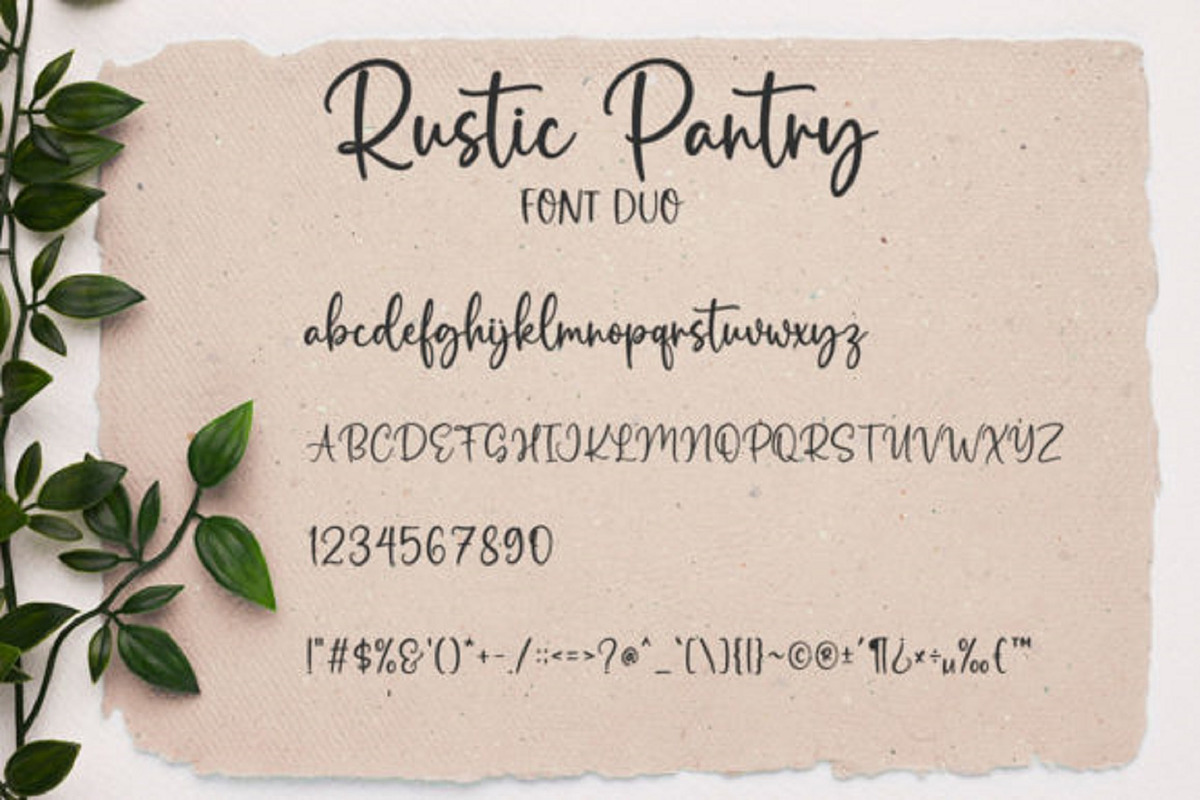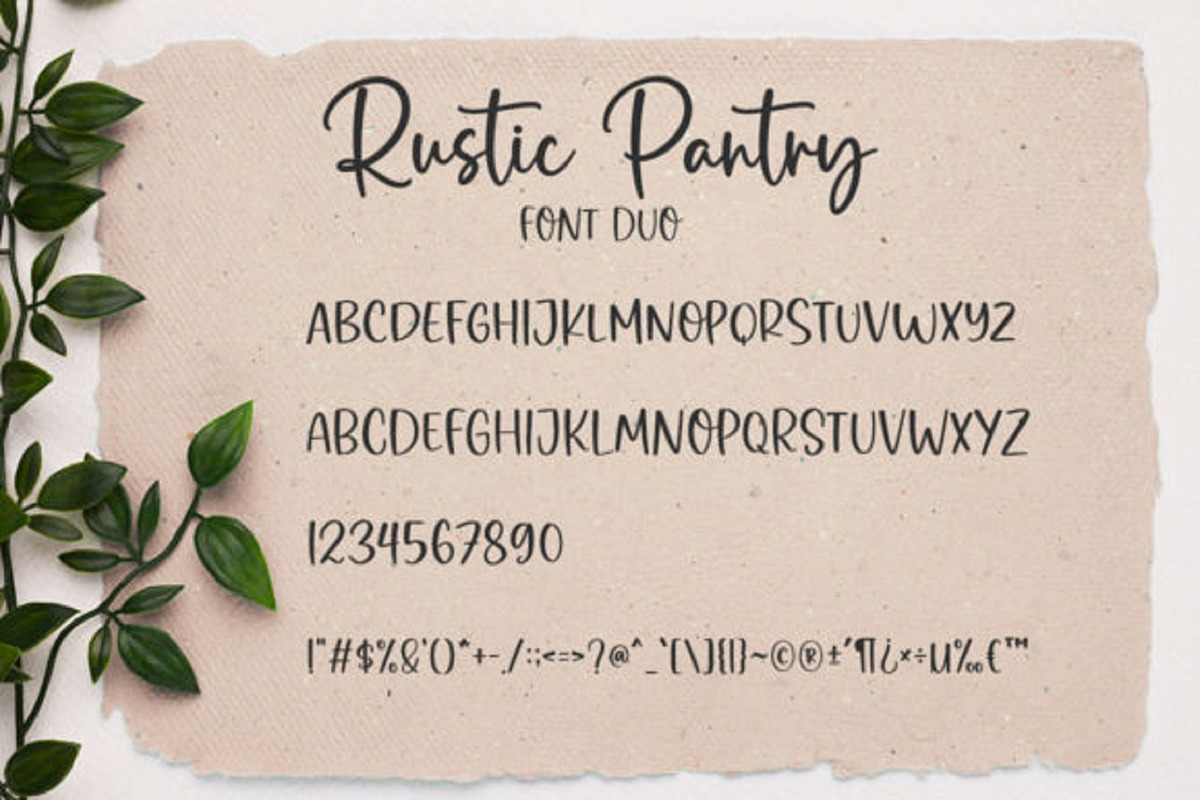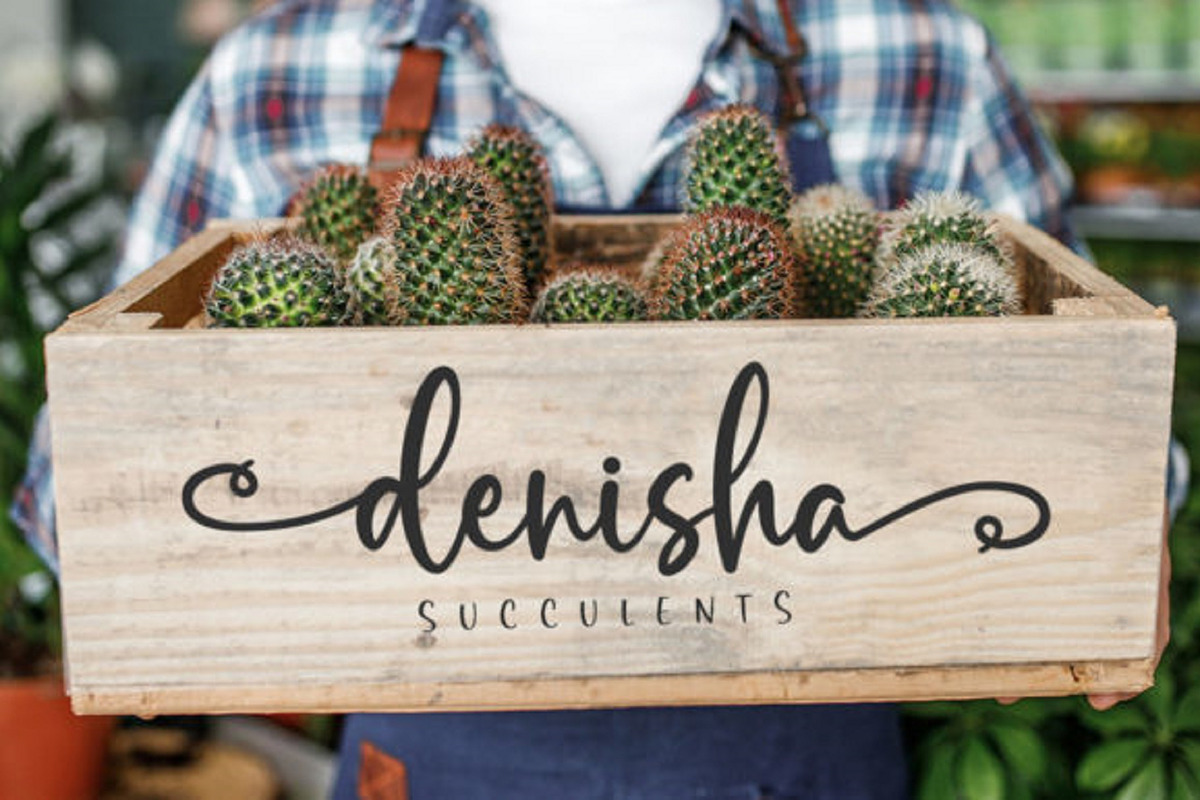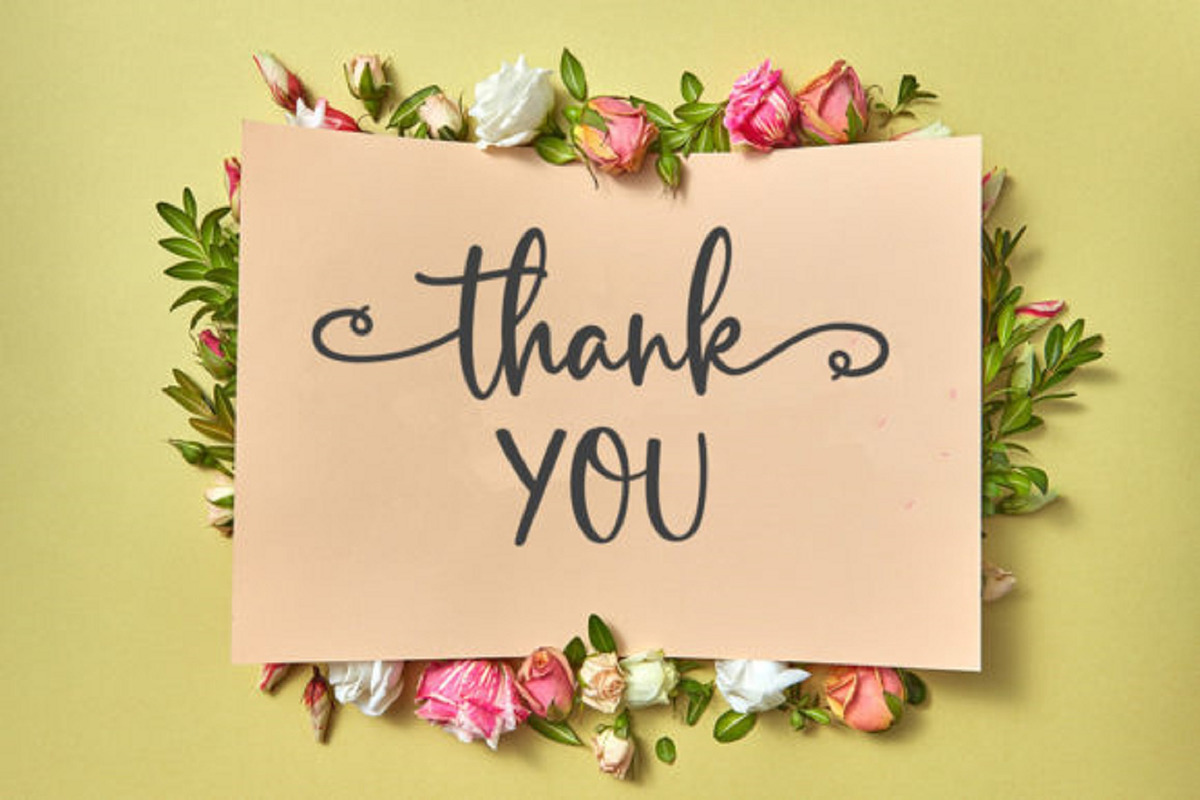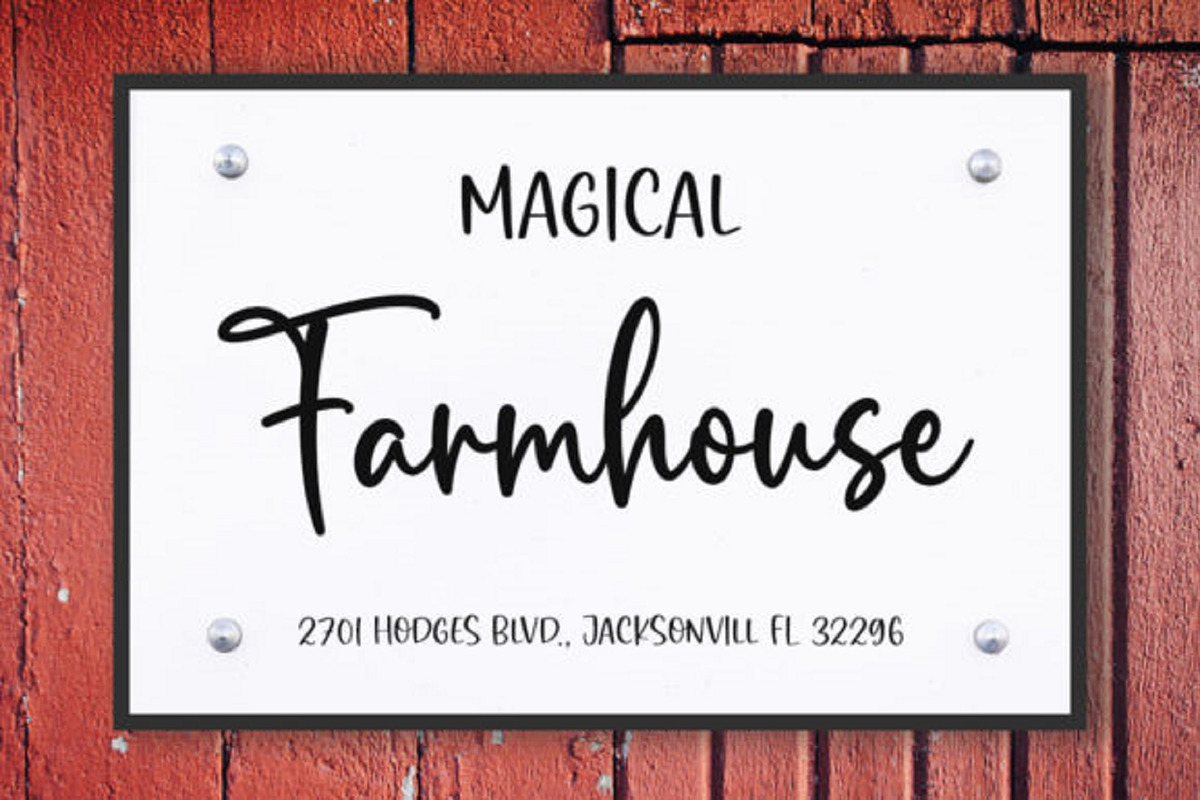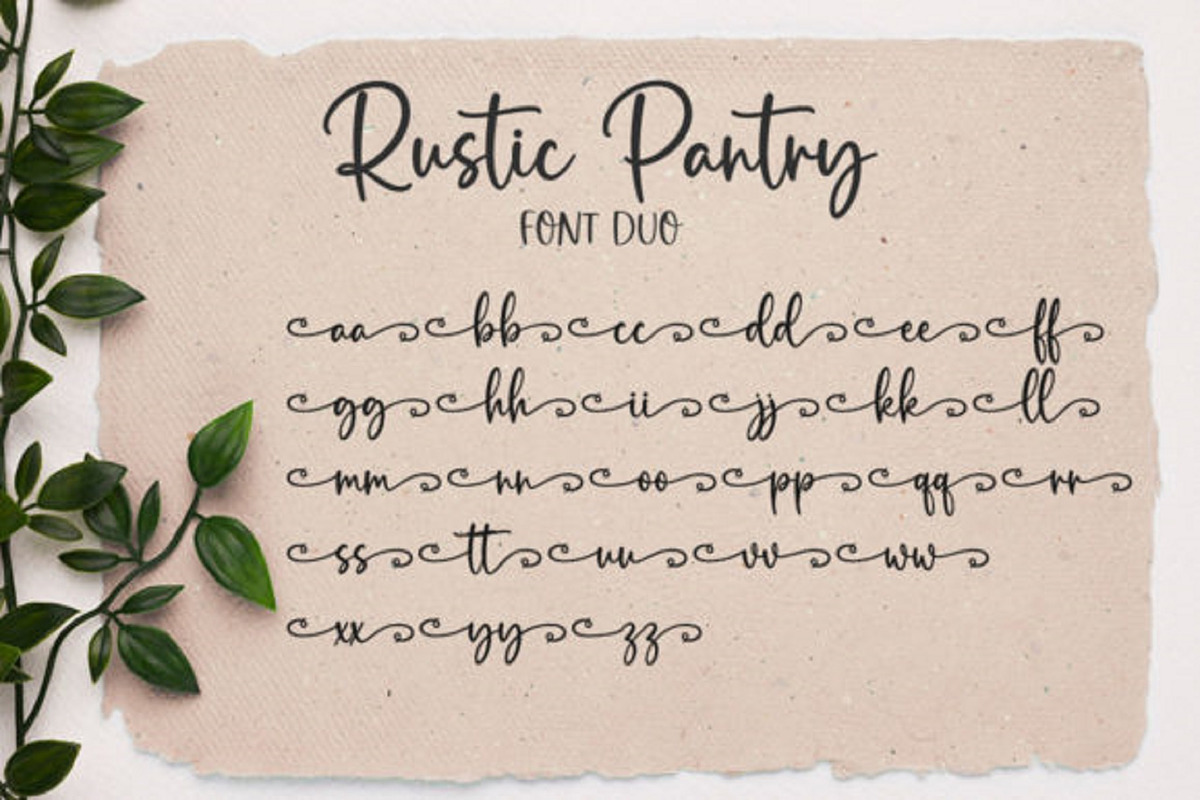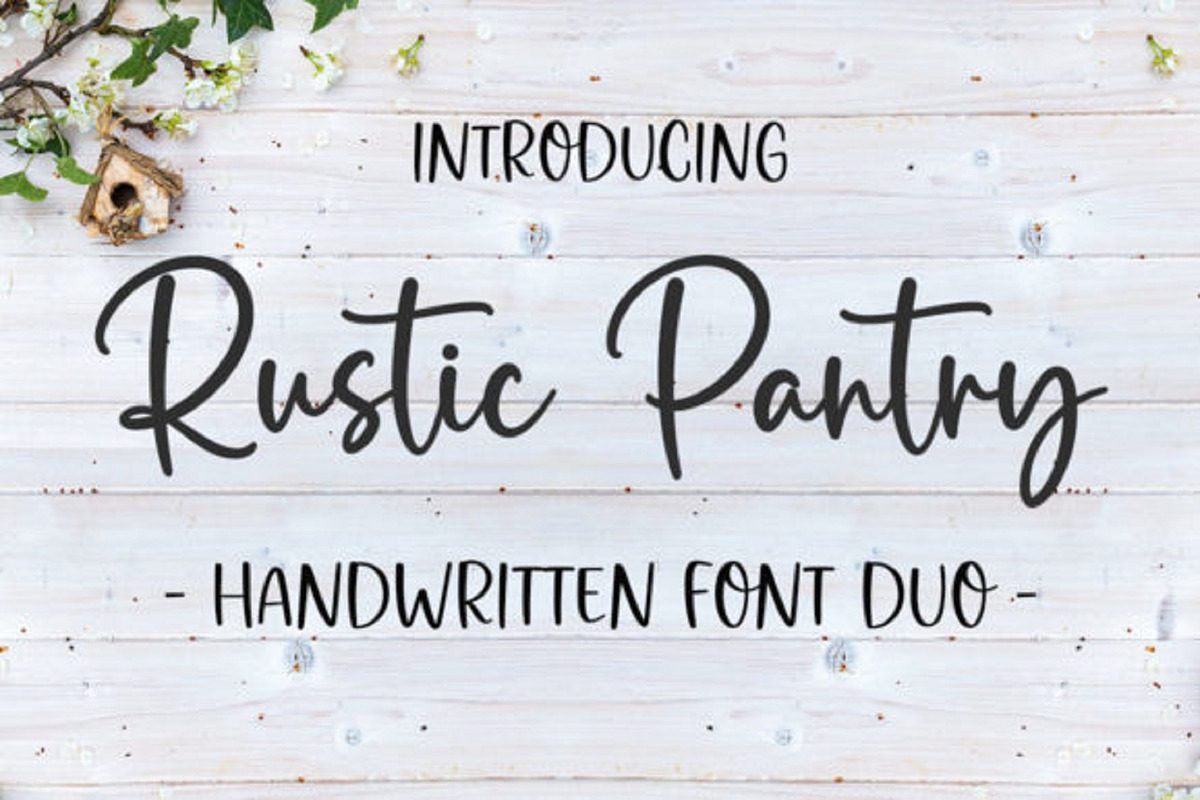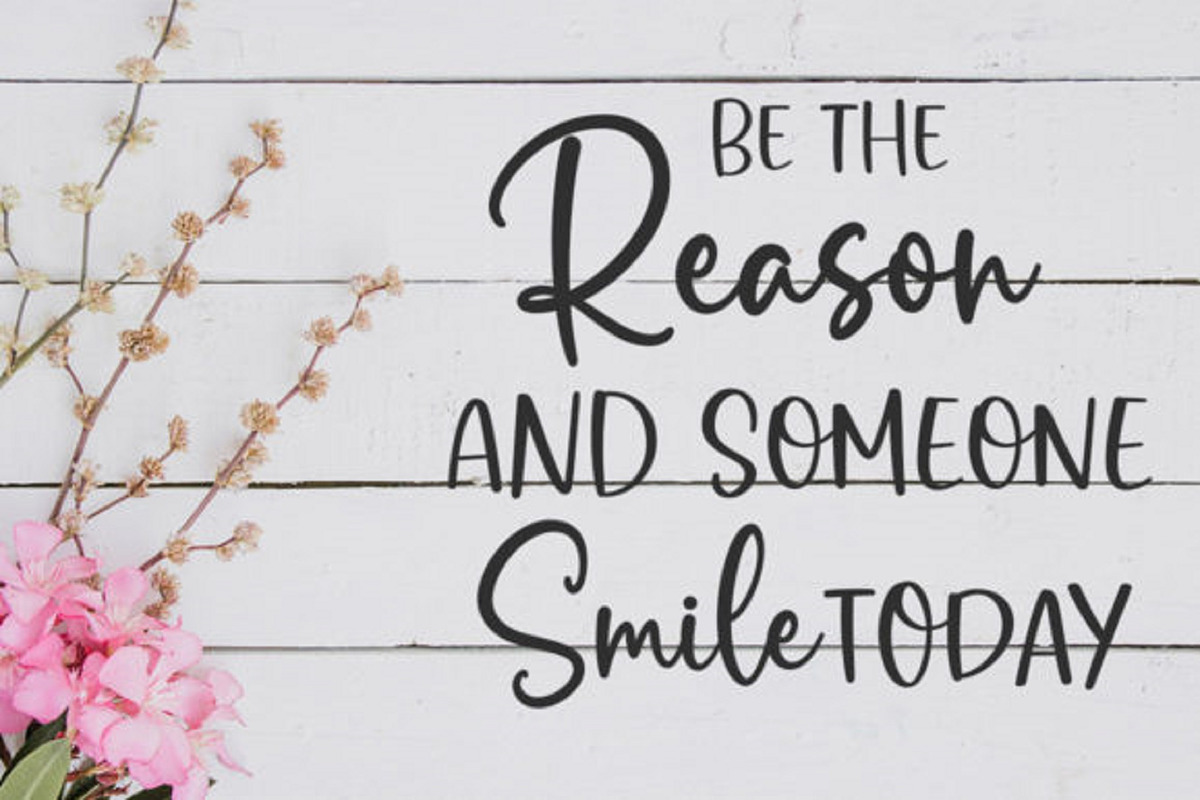
Rustic Pantry Font
Rustic Pantry is a delicate, elegant, and flowing handwritten font. It has beautiful and well-balanced characters and as a result, it matches a wide pool of designs. Rustic Pantry is PUA encoded, which means you can access all of the glyphs and swashes with ease!